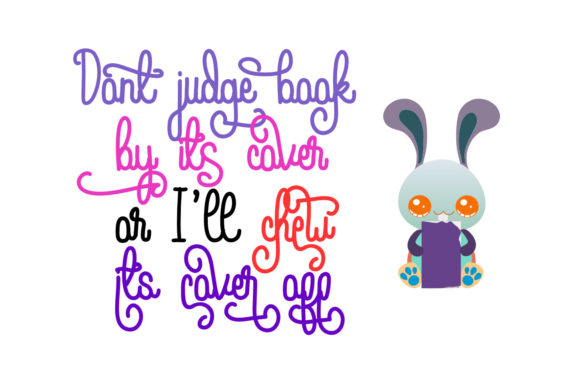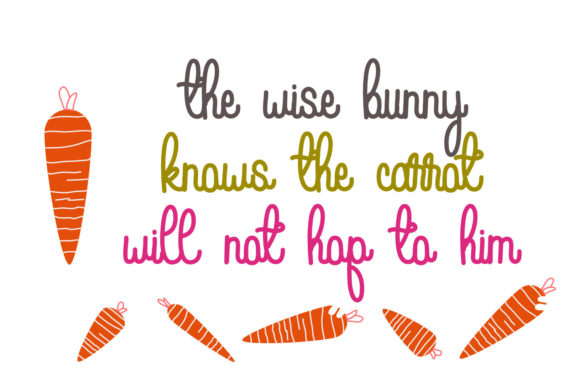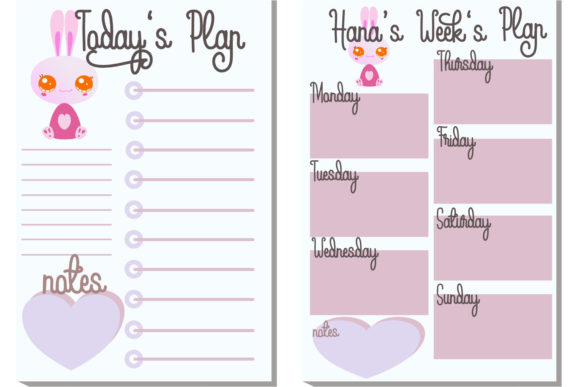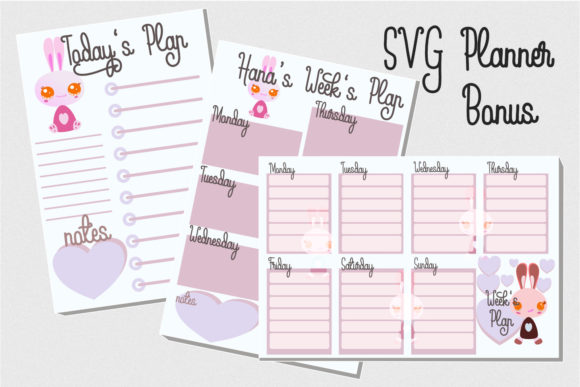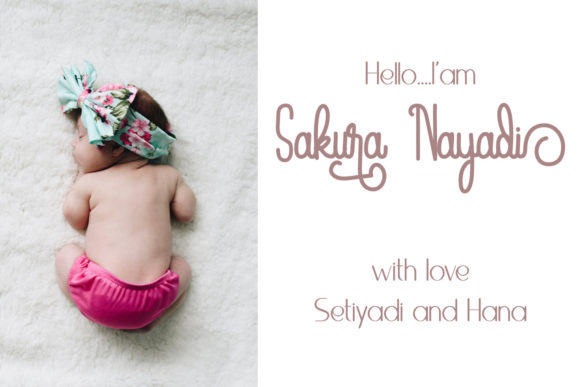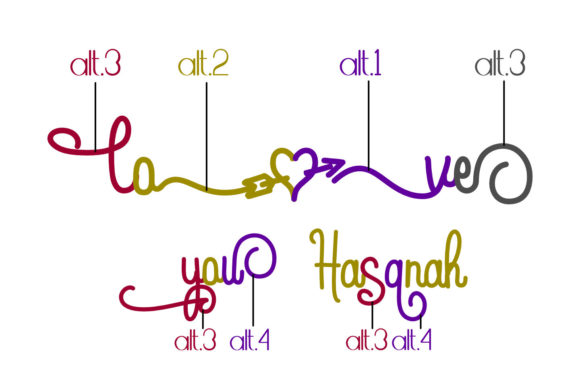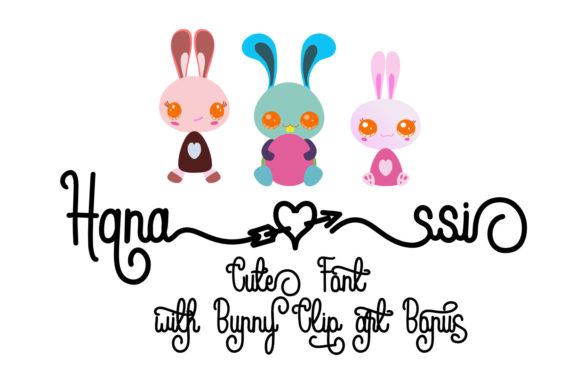
Hana Love Font: Elevate Your Designs with This Gorgeous Script Font
Are you tired of using the same old fonts in your designs? Look no further than the Hana Love Font, a stunning script font that is sure to take your projects to the next level. With its beautiful swashes and adorable bunnies’ clipart, this font is perfect for designers and crafters who want to add a touch of elegance and whimsy to their work.
What Makes Hana Love Font So Special?
Hana Love Font is a gorgeous script font that features amazing swashes and bunnies’ clipart, giving your projects an outstanding look. But that’s not all – this font is also PUA encoded, which means you can access all of the cute glyphs and swashes with ease. This makes it simple to customize your designs and add your own personal touch.
Key Features of Hana Love Font
- PUA Encoding: With PUA encoding, you can access all of the glyphs and swashes in the font, making it easy to customize your designs.
- Alternate Glyphs: The font features a range of alternate glyphs, allowing you to add variety and interest to your designs.
- Ligatures: The font also includes ligatures, which help to create a more natural, flowing look in your text.
- Bunnies’ Clipart: The font includes adorable bunnies’ clipart, perfect for adding a touch of whimsy to your designs.
- Swashes: The font features beautiful swashes, which can be used to add a decorative touch to your designs.
Why Designers and Crafters Love Hana Love Font
So why do designers and crafters love Hana Love Font? For one, it’s a versatile font that can be used in a wide range of projects, from invitations and greeting cards to blog posts and social media graphics. The font’s elegant, cursive style makes it perfect for designs that require a touch of sophistication, while the bunnies’ clipart and swashes add a playful touch.
How to Use Hana Love Font in Your Designs
Tips for Getting the Most Out of Hana Love Font
- Experiment with Different Sizes: Try using the font in different sizes to create visual interest and hierarchy in your designs.
- Mix and Match Glyphs: Don’t be afraid to experiment with different glyphs and swashes to create unique and eye-catching designs.
- Pair with Other Fonts: Hana Love Font pairs well with a range of other fonts, so try experimenting with different combinations to find the perfect look for your design.
In conclusion, Hana Love Font is a gorgeous script font that is sure to elevate your designs to the next level. With its beautiful swashes and adorable bunnies’ clipart, this font is perfect for designers and crafters who want to add a touch of elegance and whimsy to their work. Whether you’re creating invitations, greeting cards, or social media graphics, Hana Love Font is a versatile and eye-catching choice that’s sure to impress.